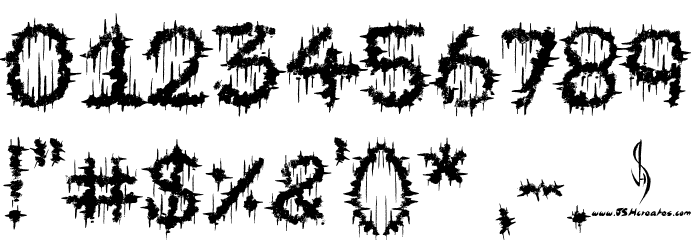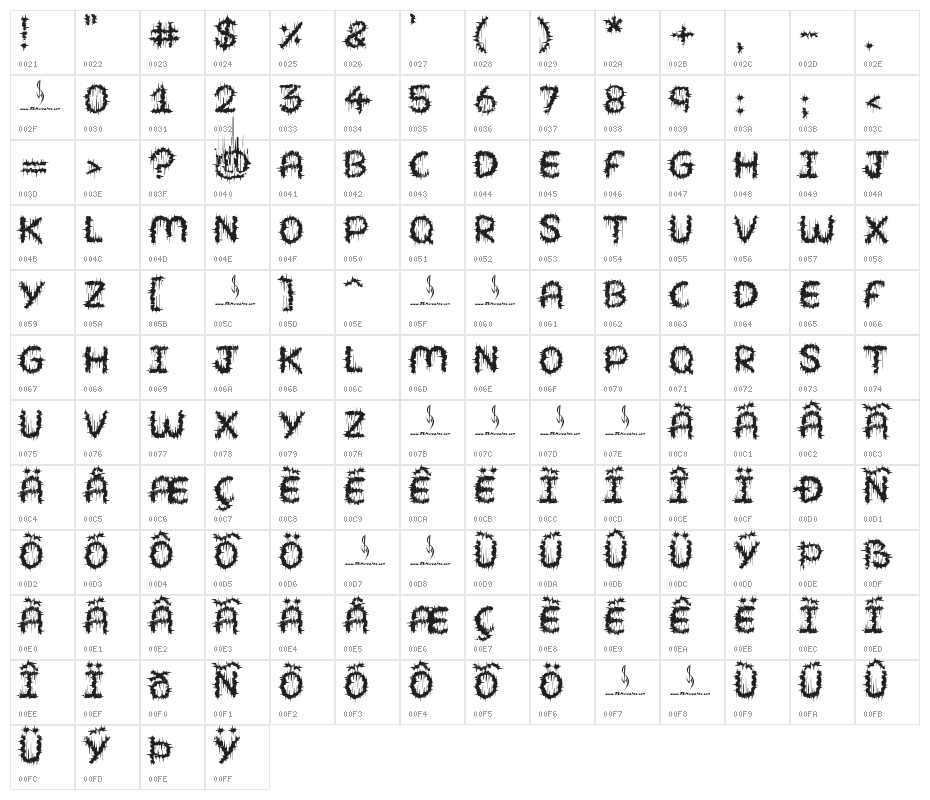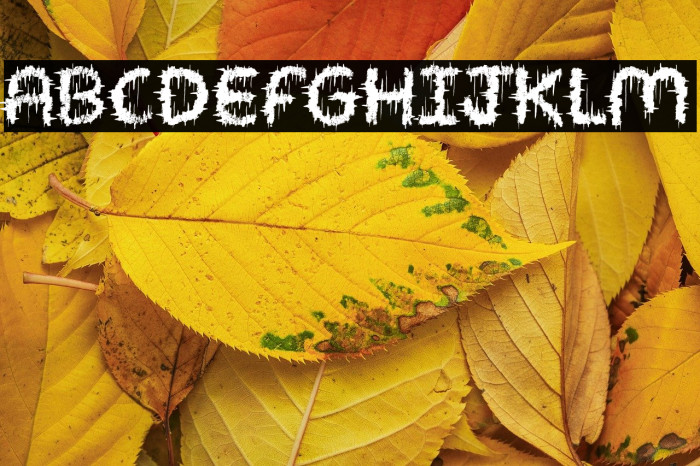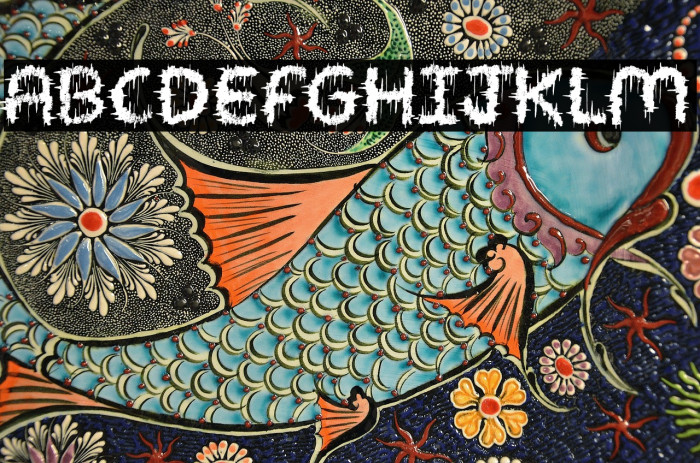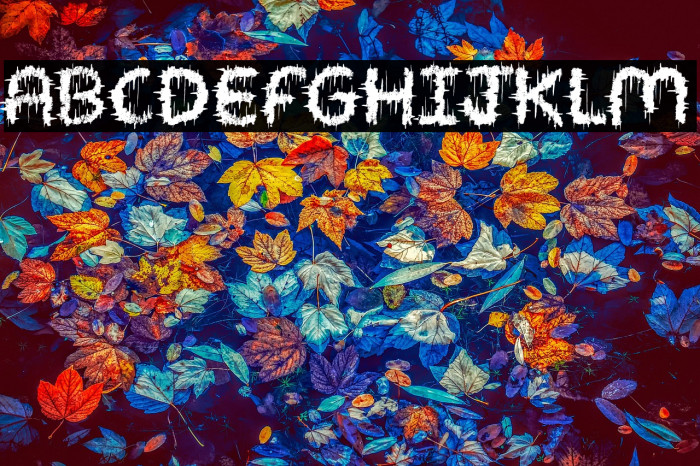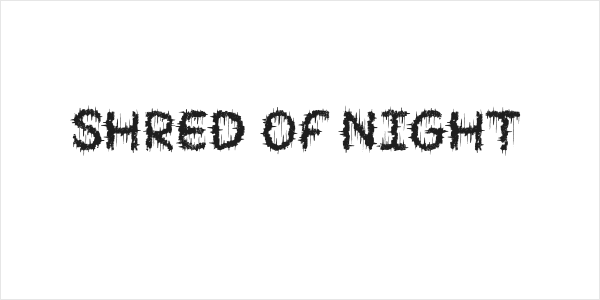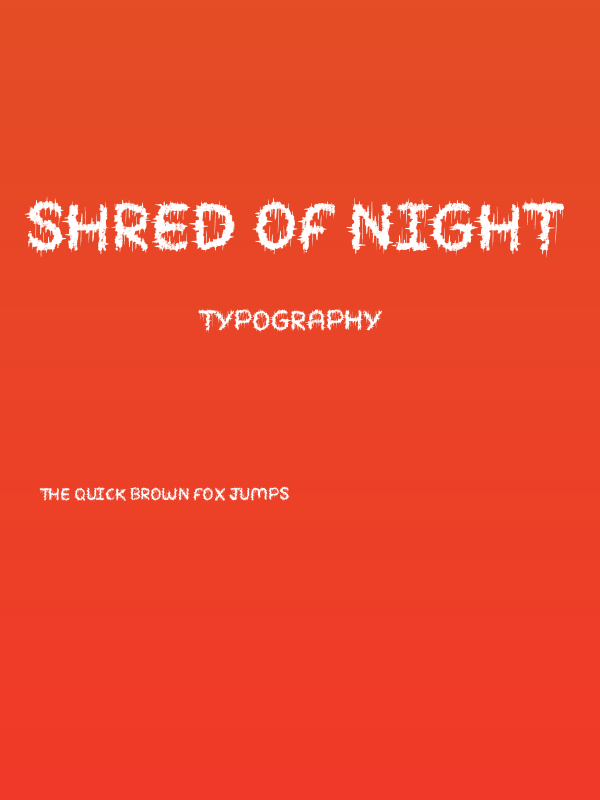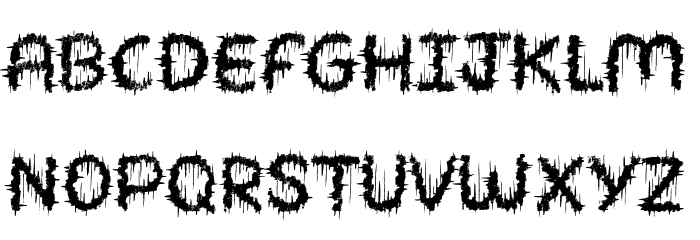
SHRED OF NIGHT Font
SHRED OF NIGHT Description
This font features a highly decorative and distressed style, reminiscent of shredded or torn paper. Each character is uniquely designed with jagged edges and irregular shapes, giving it a chaotic and edgy appearance. The font maintains a consistent height across all characters, ensuring readability despite its complex design. It evokes a sense of horror or mystery, making it ideal for themes that require a dramatic and intense visual impact. The font includes a full set of uppercase and lowercase letters, numbers, and a variety of special characters, all adhering to the same shredded aesthetic.